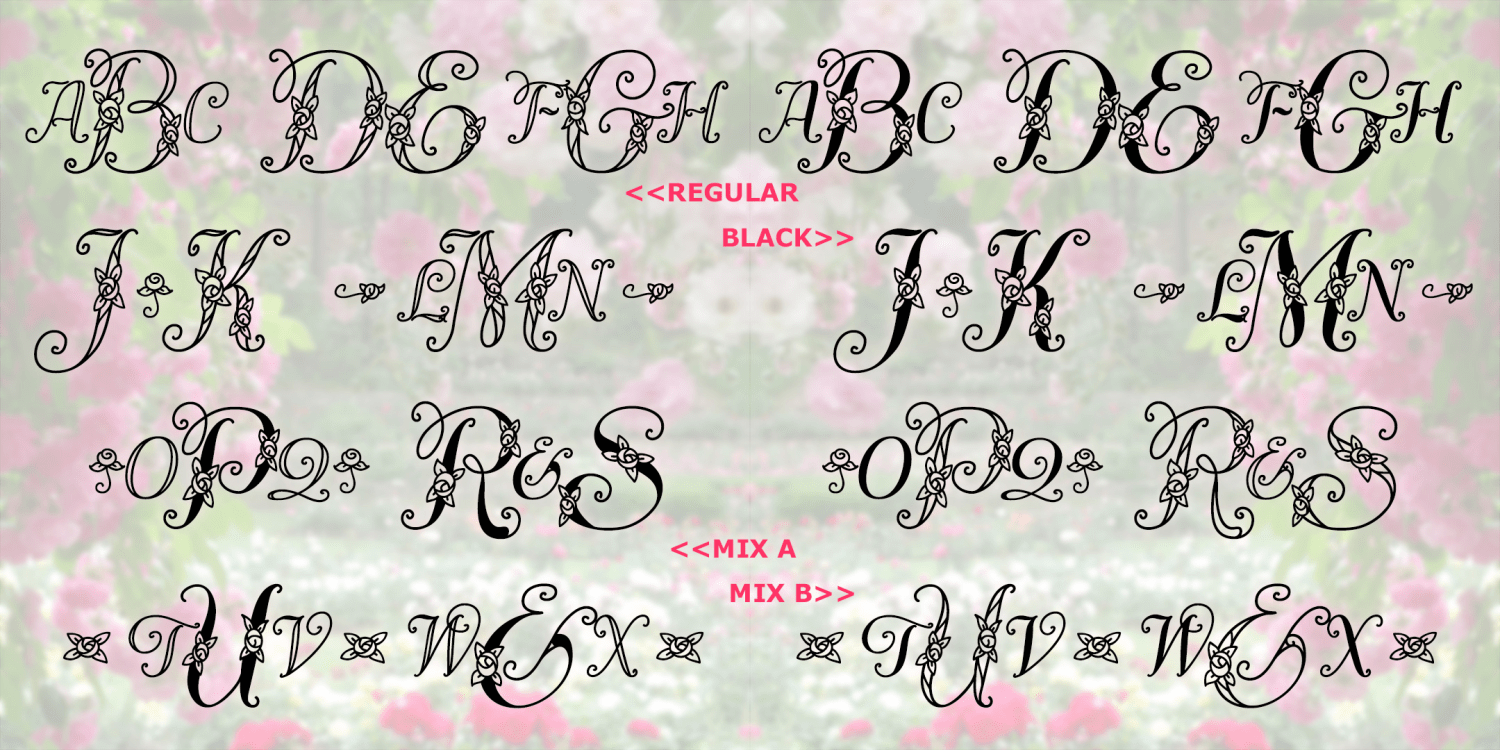
Divinity Rose Monograms
About Divinity Rose Monograms
DIVINITY ROSE MONOGRAMS is a set of 4 fonts to produce monograms in a delicate and graceful style studded with dainty roses. A choice of solid or open letters and an assortment of coordinated decorations allow even more flexibility in creating your own…